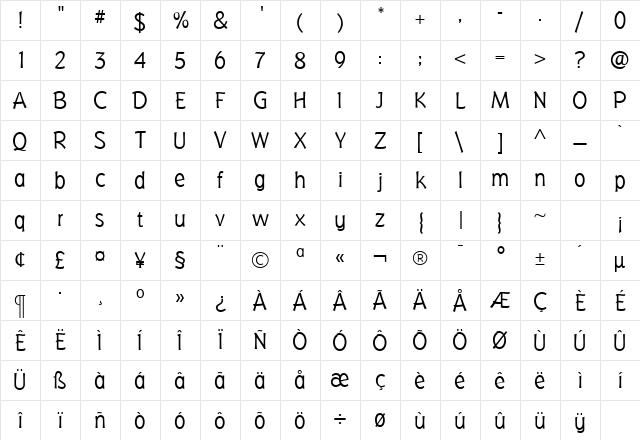
Complete BadgerLight Roman glyph index. Displaying only characters natively supported by BadgerLight Roman font.
BadgerLight is a composed and adaptable typeface that performs quietly and consistently across a wide range of design contexts. Its slender proportions lend an understated elegance to any composition.